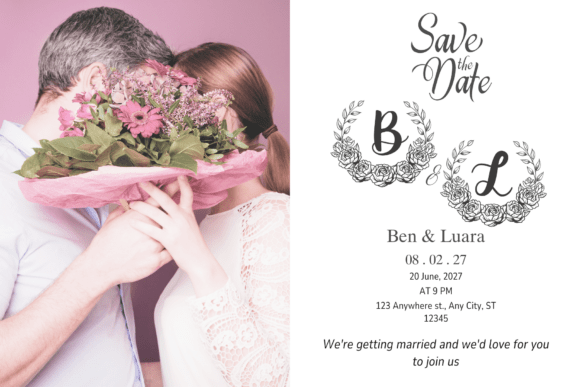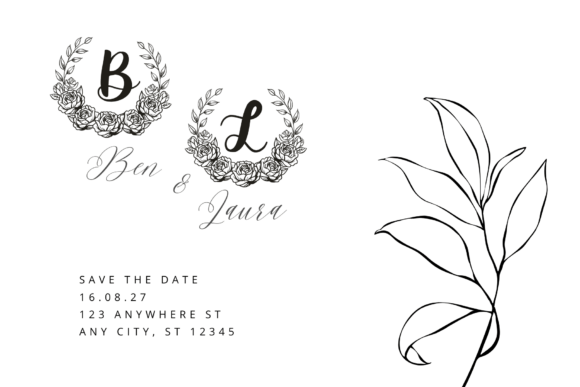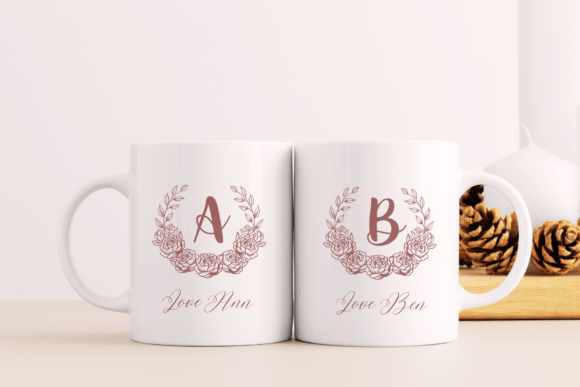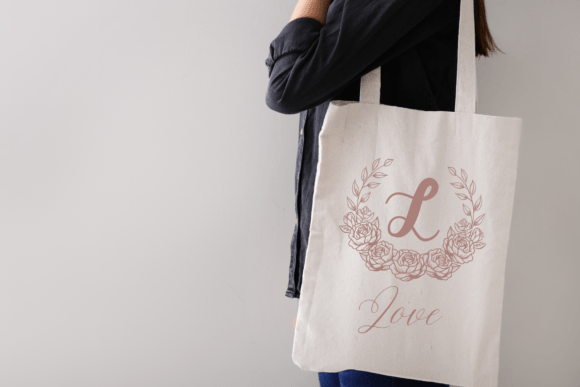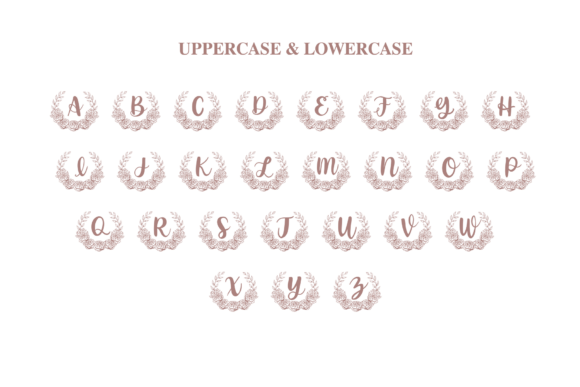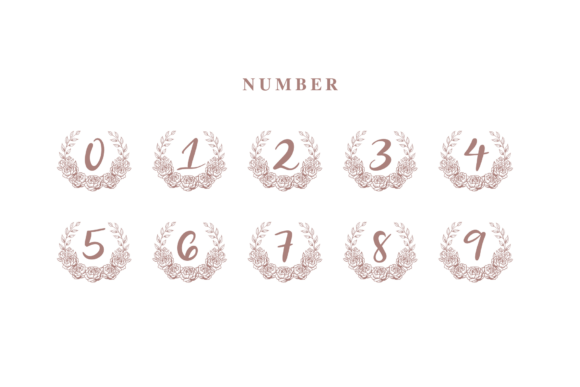
Where Words Bloom into Beauty
As you sit at your desk, surrounded by scraps of paper, fonts, and color palettes, the excitement of creating something special washes over you. You’re planning a wedding, a birthday, or maybe a baby shower, and you want every detail to be perfect. The invitations, the thank-you cards, the stationery – it’s all about making a statement, and that’s where the Beautiful Flower Monogram Font comes in.
This elegant font is designed to add a touch of whimsy and romance to your special occasions. With its beautiful flowers and delicate letters, it’s the perfect way to make your guests feel like they’re part of something truly special. As a designer, you know how much detail matters, and this font is a valuable addition to your toolkit. Whether you’re creating invitations, menus, or programs, the Beautiful Flower Monogram Font is sure to impress.
Key Features of Beautiful Flower Monogram Font
- Font Style: A unique, cursive monogram font with floral elements, perfect for adding a touch of elegance and sophistication to your designs.
- Font Size: The font is available in a single size, making it easy to use in various design contexts. However, it can be scaled up or down as per your requirements.
- Resolution: The font is optimized for high-resolution displays and prints, making it suitable for use in various mediums, including digital and print materials.
- Unique Characteristics: The font features intricate floral designs, making it perfect for creating custom monograms, logos, and other designs that require a touch of whimsy and romance.
- Usage: Suitable for use in a variety of design contexts, including wedding invitations, branding materials, social media graphics, and more.
Beautiful Flower Monogram Font Review
I recently had the chance to work with the Beautiful Flower Monogram Font, and I must say, it’s a unique and lovely addition to any design project. ✨ Here are some of the things that stood out to me:
- High-quality vectors: The font files are well-organized and easy to work with.
- Customization options: The font allows for a range of customization options, from color to size.
- Creative possibilities: The monogram design lends itself to creative and unique interpretations.
However, I did encounter a few limitations that I think are worth noting:
- Limited font sizes: The font may not be suitable for larger or smaller font sizes, which could affect its legibility.
- No support for bold or italic styles: This may limit its use in certain design contexts.
- Dependence on color: The font’s beauty is heavily dependent on the color scheme chosen.
Overall, I think the Beautiful Flower Monogram Font is a lovely addition to any design project, but it may not be suitable for every use case. With a little creativity and attention to detail, it can add a touch of elegance and whimsy to your designs. ⚠️ Just be mindful of its limitations, and you’ll be good to go!
The Beautiful Flower Monogram Font is ideal for creating custom invitations, wedding stationery, and personal stationery. To get the most out of it, experiment with different font sizes, colors, and arrangements to create unique and eye-catching designs.
Q: What is the recommended font size for using the Beautiful Flower Monogram Font in design projects?
The Beautiful Flower Monogram Font is designed to be used at a minimum font size of 24 points, although it can be used at larger sizes for emphasis or decorative purposes. Using the font at smaller sizes may result in readability issues, especially in digital formats.